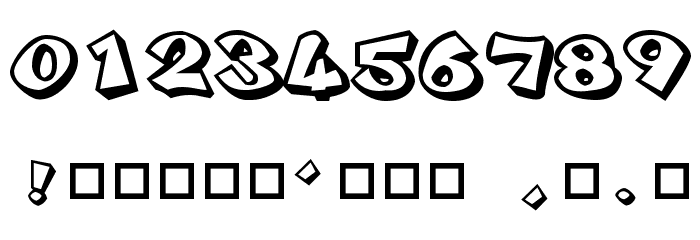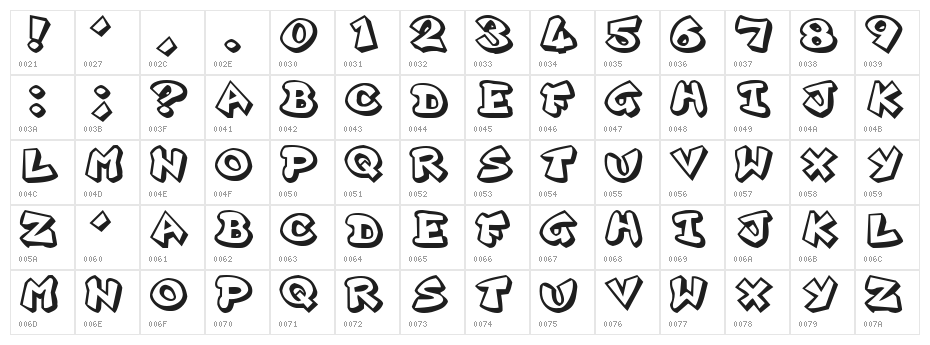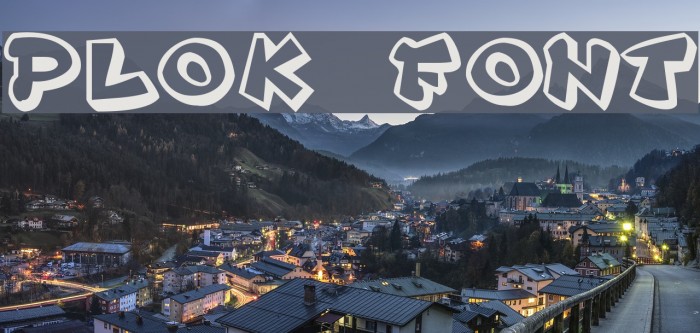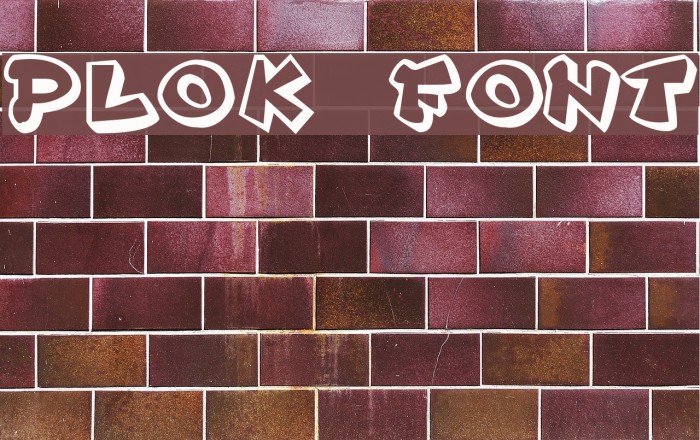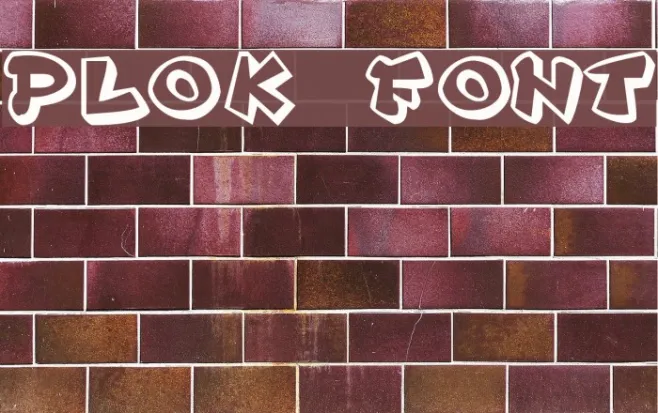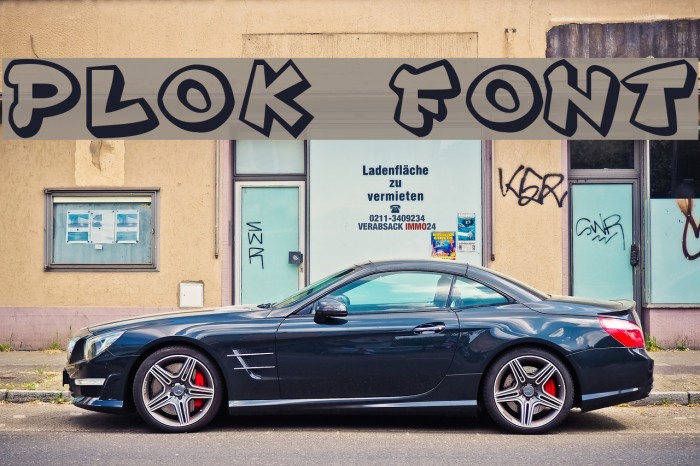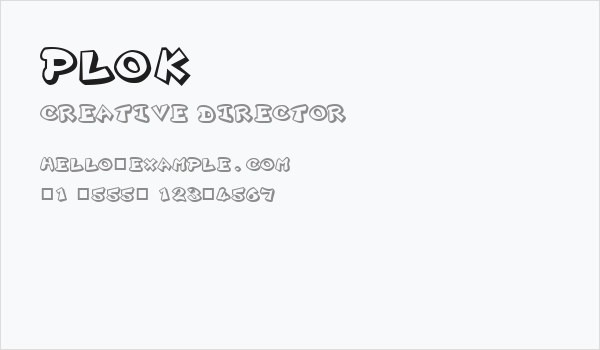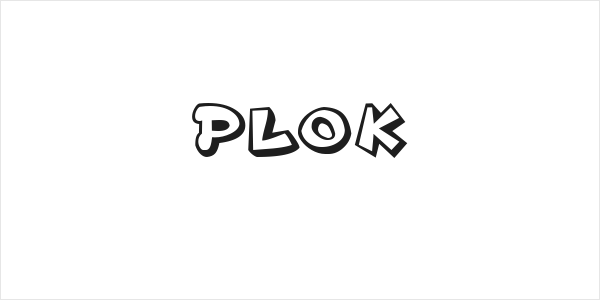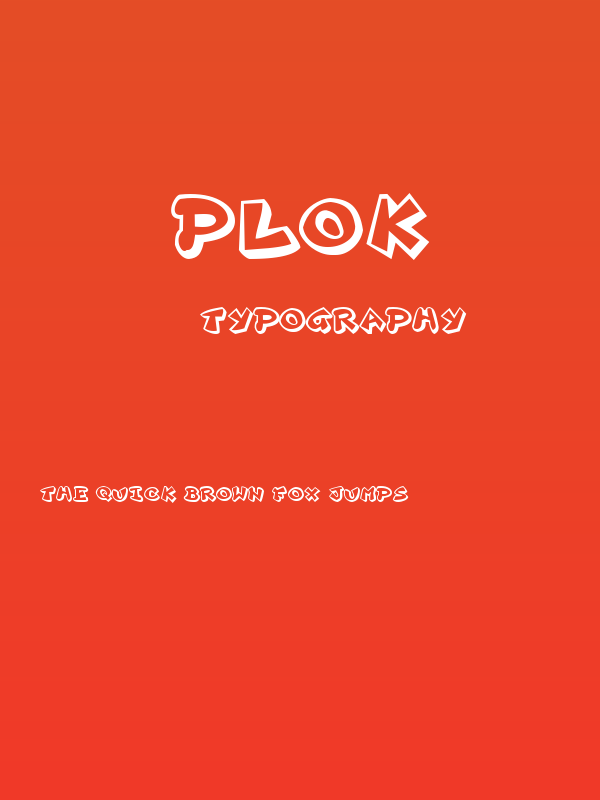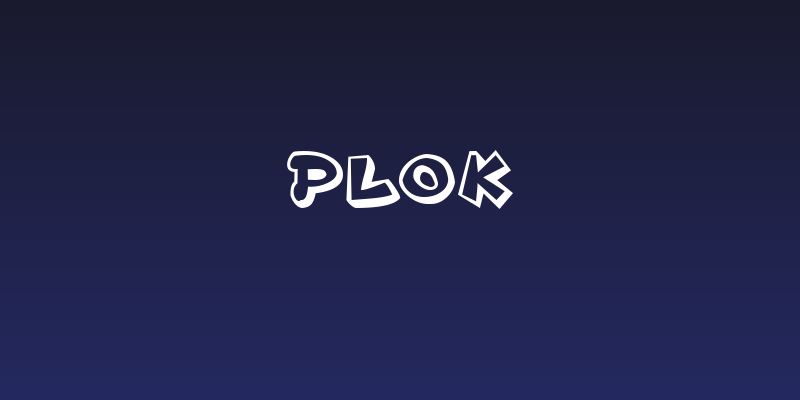
Plok Font
Plok Description
This font features a bold, playful style with a three-dimensional effect created by thick outlines and shadowing. The characters have a cartoonish, dynamic appearance, making them stand out with a sense of movement and energy. The uppercase and lowercase letters maintain a consistent style, with rounded edges and exaggerated serifs that add to the whimsical feel. Numbers and special characters are designed with the same boldness and playful characteristics, ensuring a cohesive look across all elements. The font's unique style makes it ideal for projects that require a fun and engaging visual impact.
| Overall Style | Playful, Cartoonish, Fun |
| Proposed Projects | Ideal for children's books, comic strips, playful branding, and event posters. |